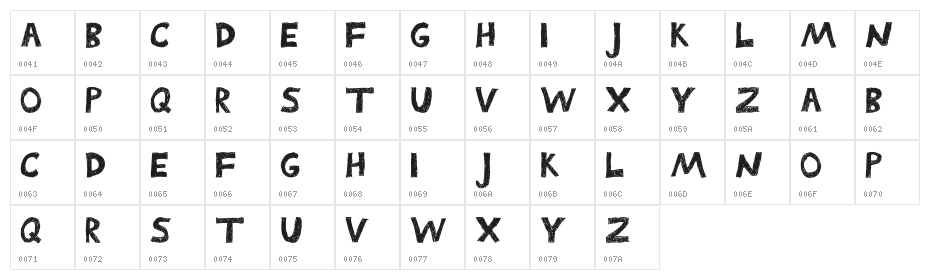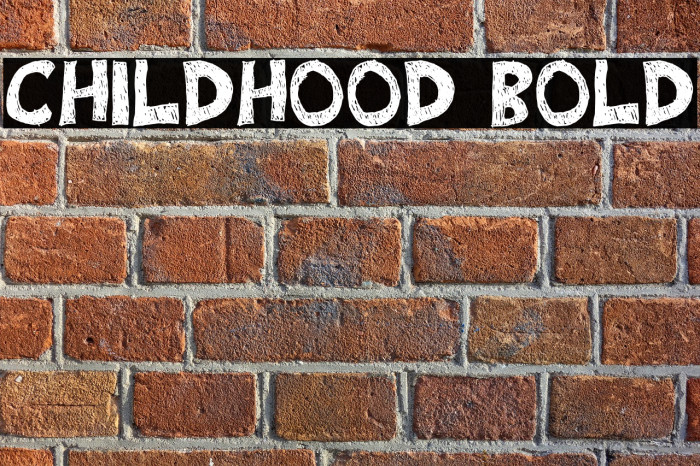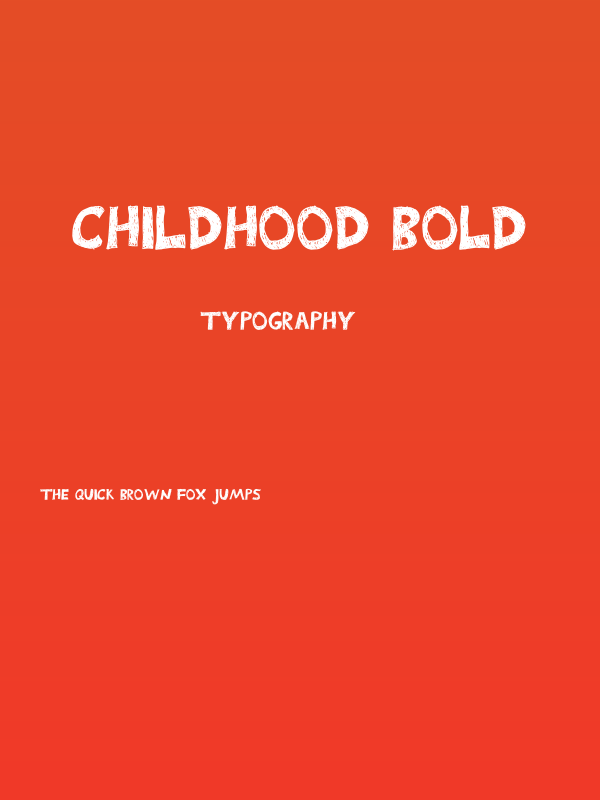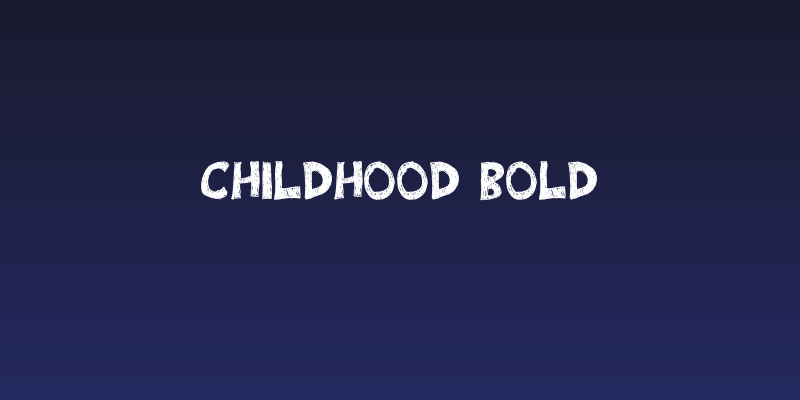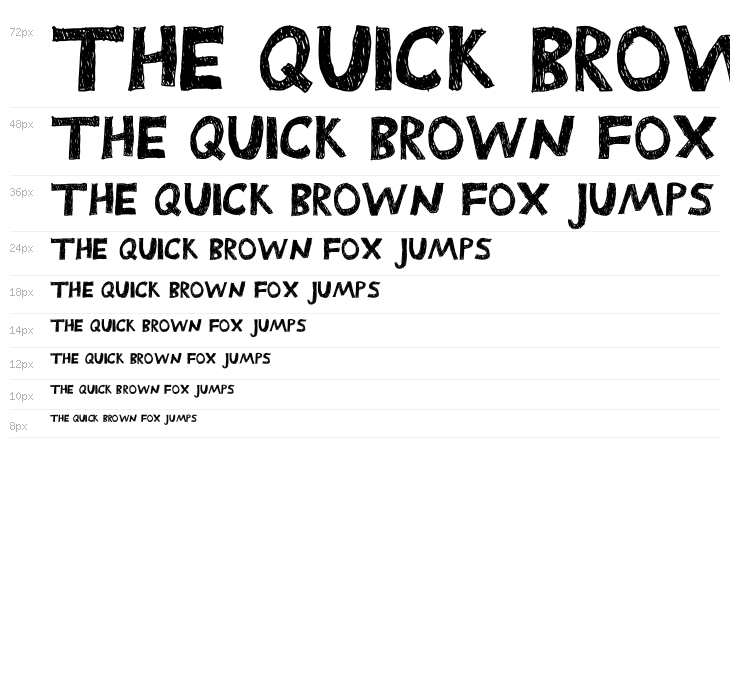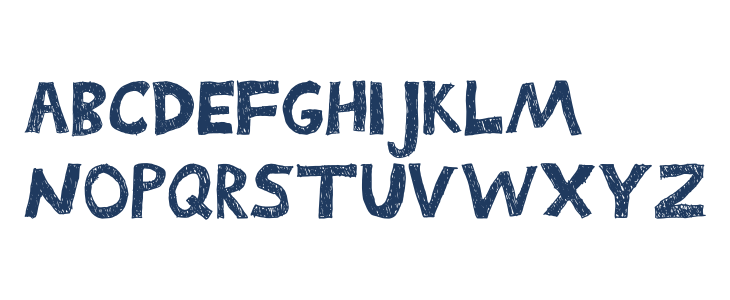
Childhood Bold Font
Childhood Bold Description
This playful and bold font features a hand-drawn, textured appearance reminiscent of childhood doodles. The uppercase letters are robust and slightly irregular, giving a sense of spontaneity and creativity. The strokes are thick and uneven, adding to the whimsical and informal style. The font's unique texture creates a sense of movement and energy, making it ideal for projects that require a fun and engaging look. The characters are well-defined, with a consistent baseline, yet each letter retains its own distinct personality. This font is perfect for capturing the essence of youthful exuberance and creativity.
Overall StylePlayful, Whimsical
Proposed ProjectsIdeal for children's book covers, playful posters, educational materials, and creative branding.